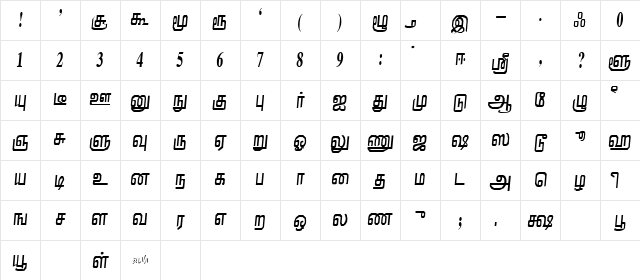
Nirmala Regular
Design Context for Nirmala
Nirmala is a composed and adaptable typeface that performs quietly and consistently across a wide range of design contexts.